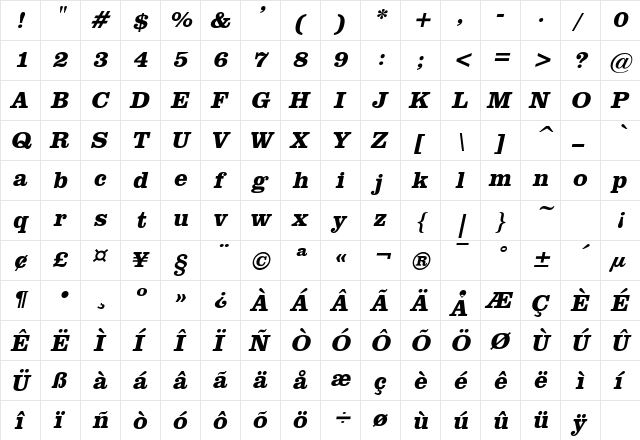
Gettysburg BoldItalic
Design Context for Gettysburg Typeface
Gettysburg is a composed and adaptable typeface that performs quietly and consistently across a wide range of design contexts. The slanted form adds forward momentum and visual energy. The heavy weight commands attention and anchors typographic hierarchies.
Pro Tip: Try Gettysburg for annotation and caption copy alongside an upright companion — the contrast in angle creates a dynamic but ordered typographic system.